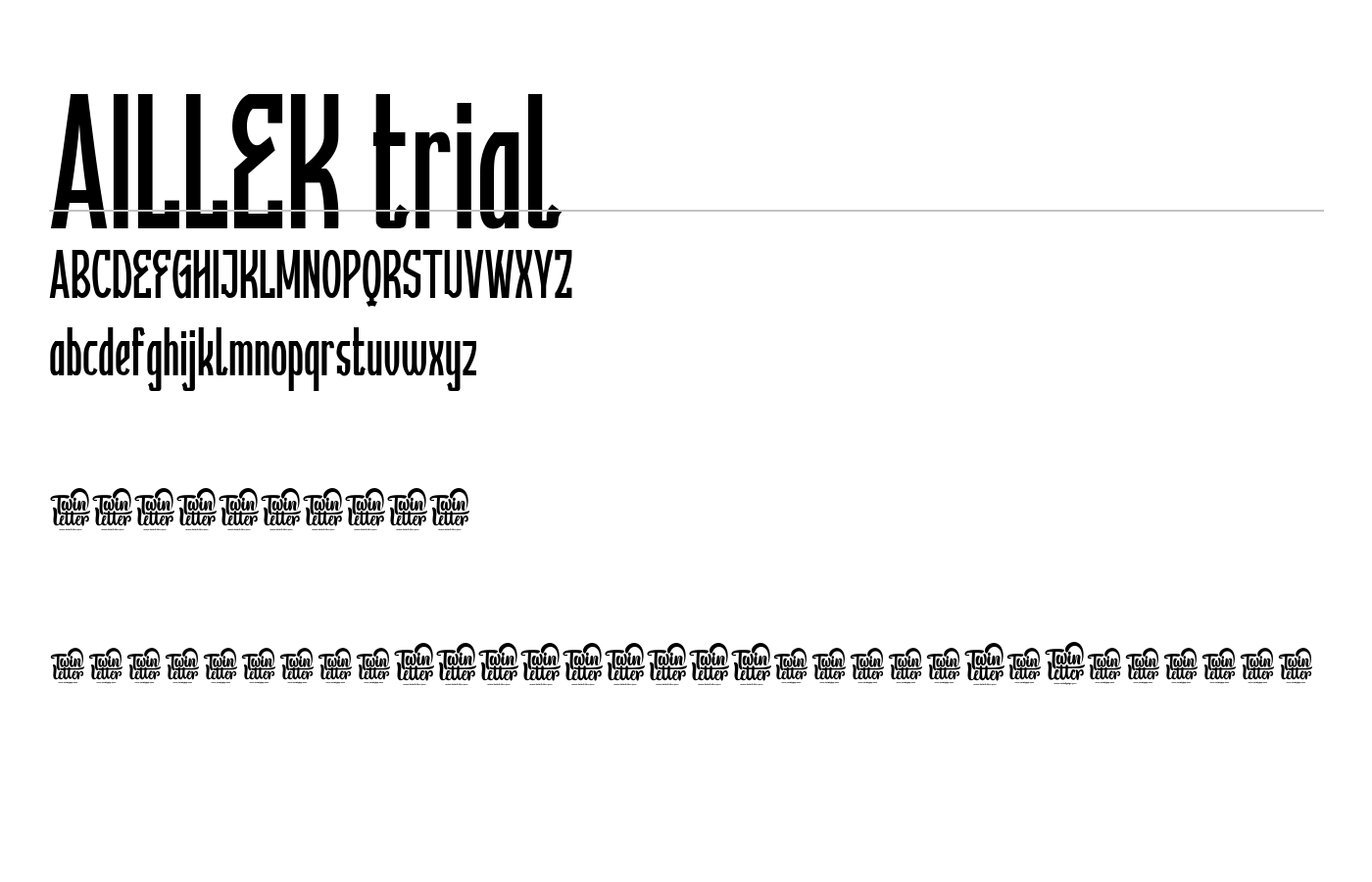
AILLEK trial is a tall, condensed sans serif font with a strong, modern edge and high contrast between its thick and thin strokes, giving it a striking and narrow appearance. Its sharp, geometric letterforms and unique character details make it perfect for bold headlines, branding, and designs that need a contemporary and confident look. This font works especially well in fashion, editorial, and display contexts where style and impact are key.
AILLEK trial Font
About AILLEK trial Font
| Designer | Ojak |